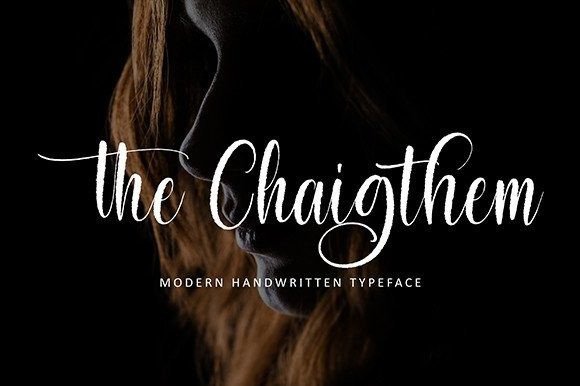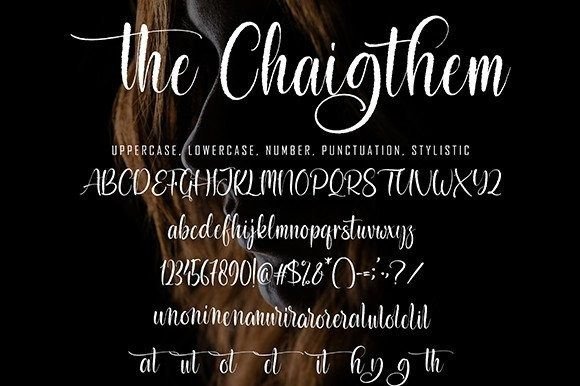
The Chaigthem Font
About The Chaigthem Font
The Chaigthem is a newly crafted and stunning script font that injects a fresh and modern aesthetic into a variety of projects. Its versatile design makes it a perfect fit for numerous applications, ranging from quotes, logos, and blog headers to posters, branding, letters, invitations, stationery, and more.
This script font introduces a unique and contemporary style that adds a touch of elegance and sophistication to your designs. Its fresh appearance makes it well-suited for a wide range of creative projects, allowing you to experiment and explore different applications.
Whether you’re seeking a font for impactful quotes, eye-catching logos, stylish blog headers, attention-grabbing posters, cohesive branding, personal letters, or elegant invitations and stationery, The Chaigthem is designed to deliver a stunning and cohesive look across diverse design needs.
Incorporate The Chaigthem into your creative toolkit and witness how it transforms your projects with its modern and captivating script. Its versatility and aesthetic appeal make it an excellent choice for those looking to infuse a touch of contemporary elegance into their designs. Let The Chaigthem be the script font that elevates your creative endeavors and captivates your audience across a spectrum of applications.